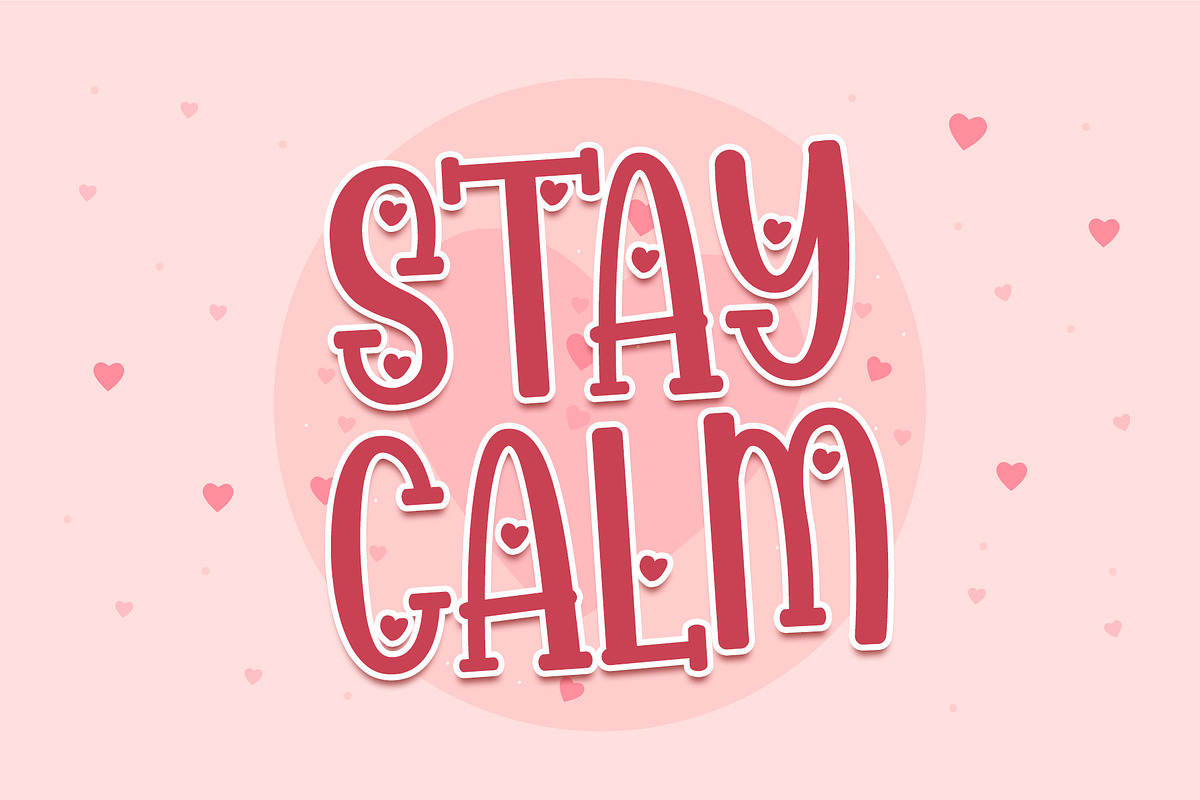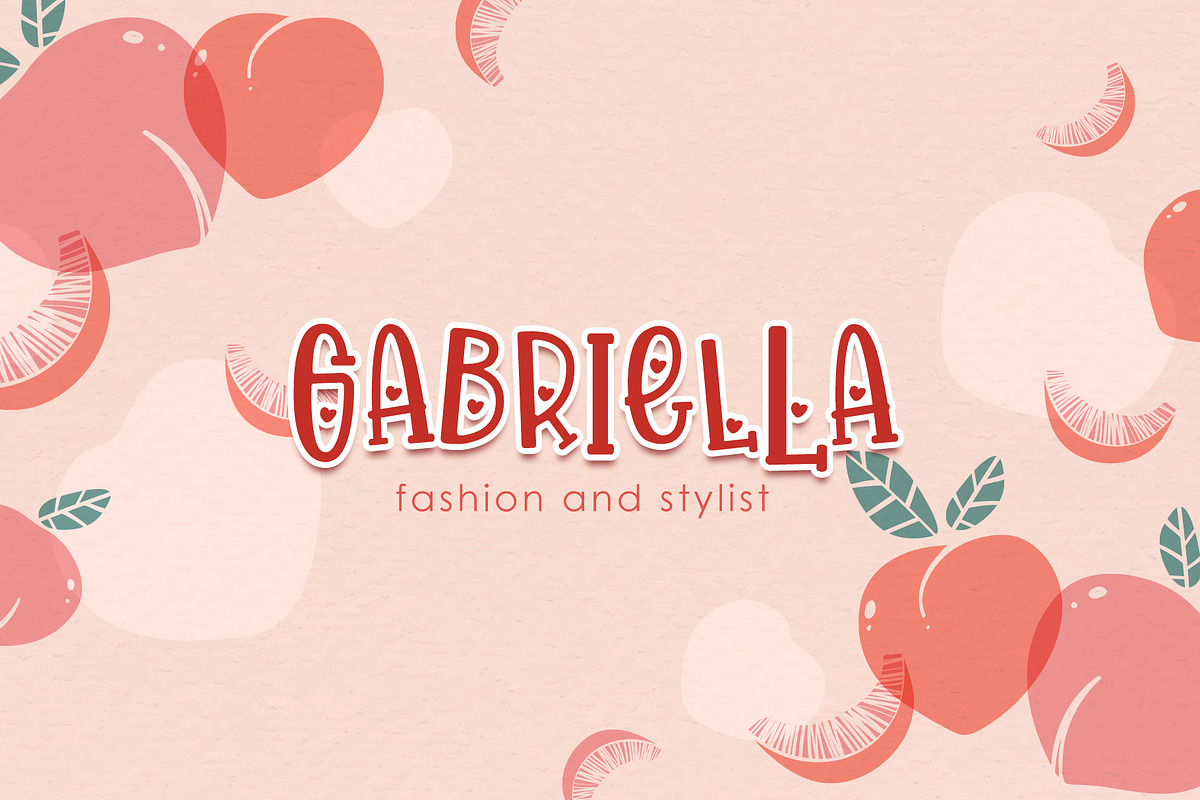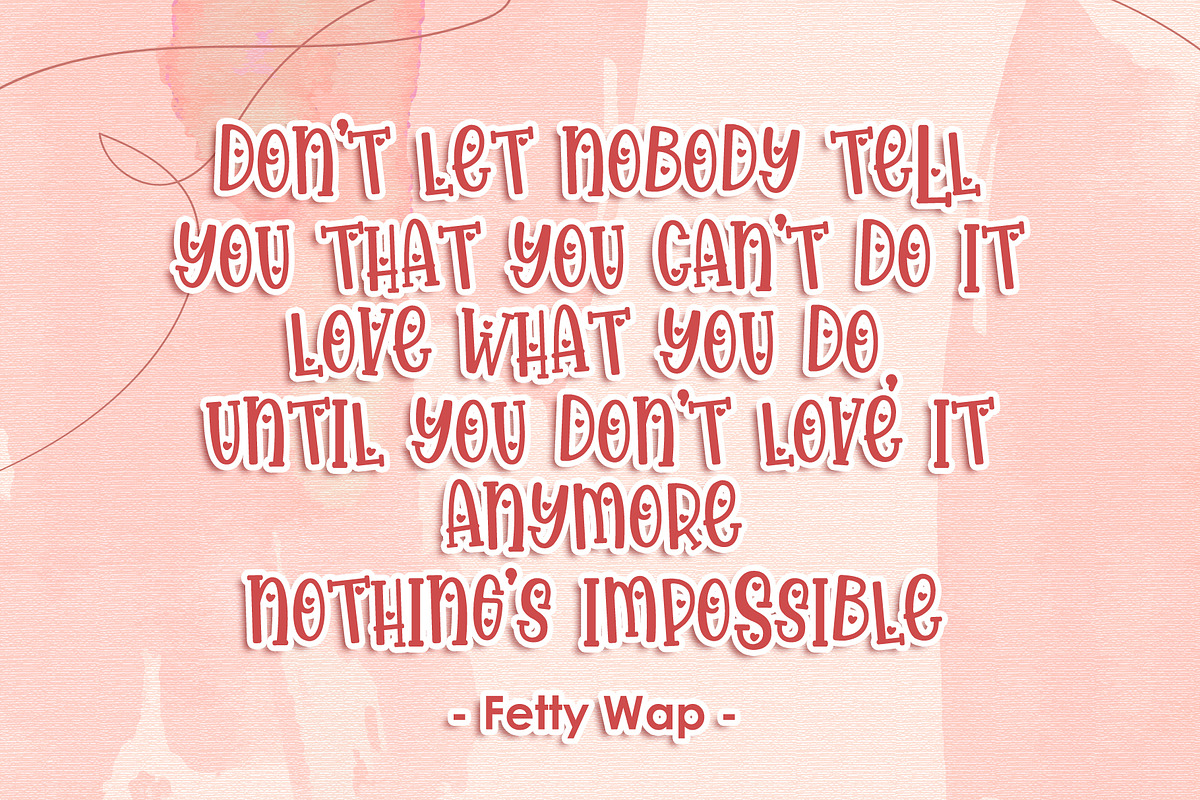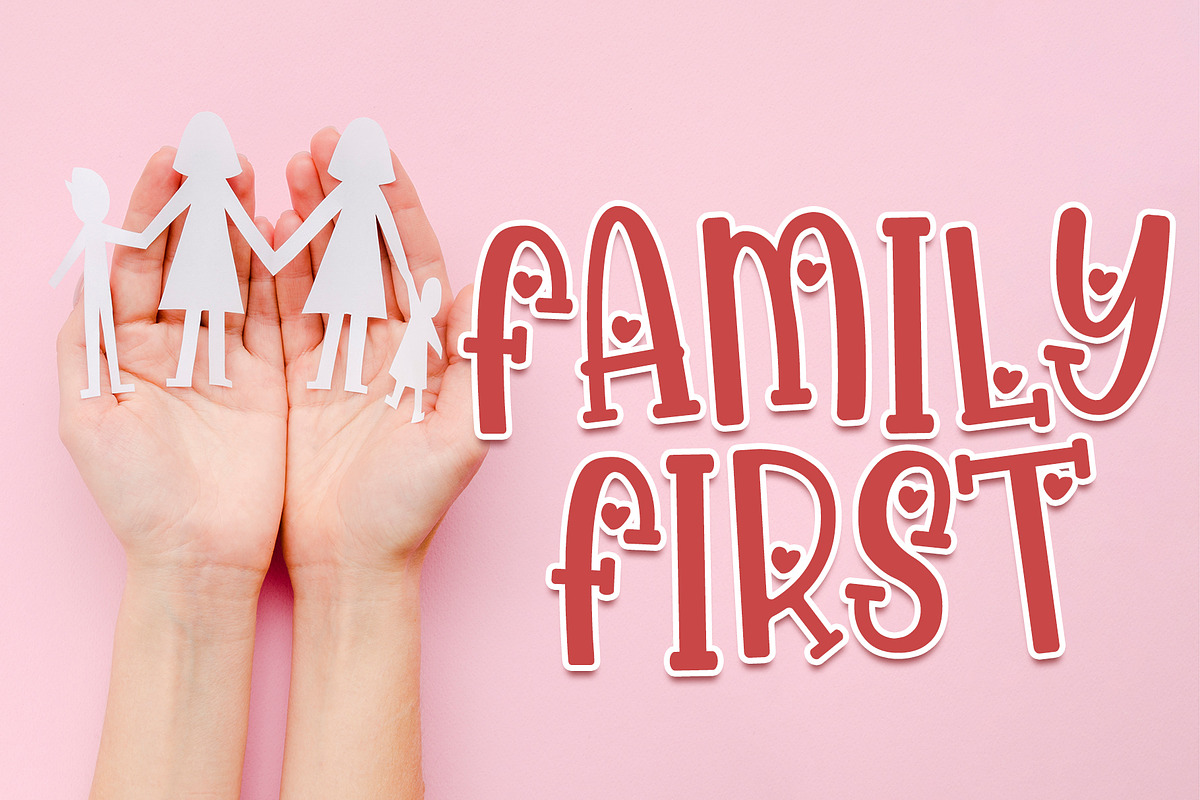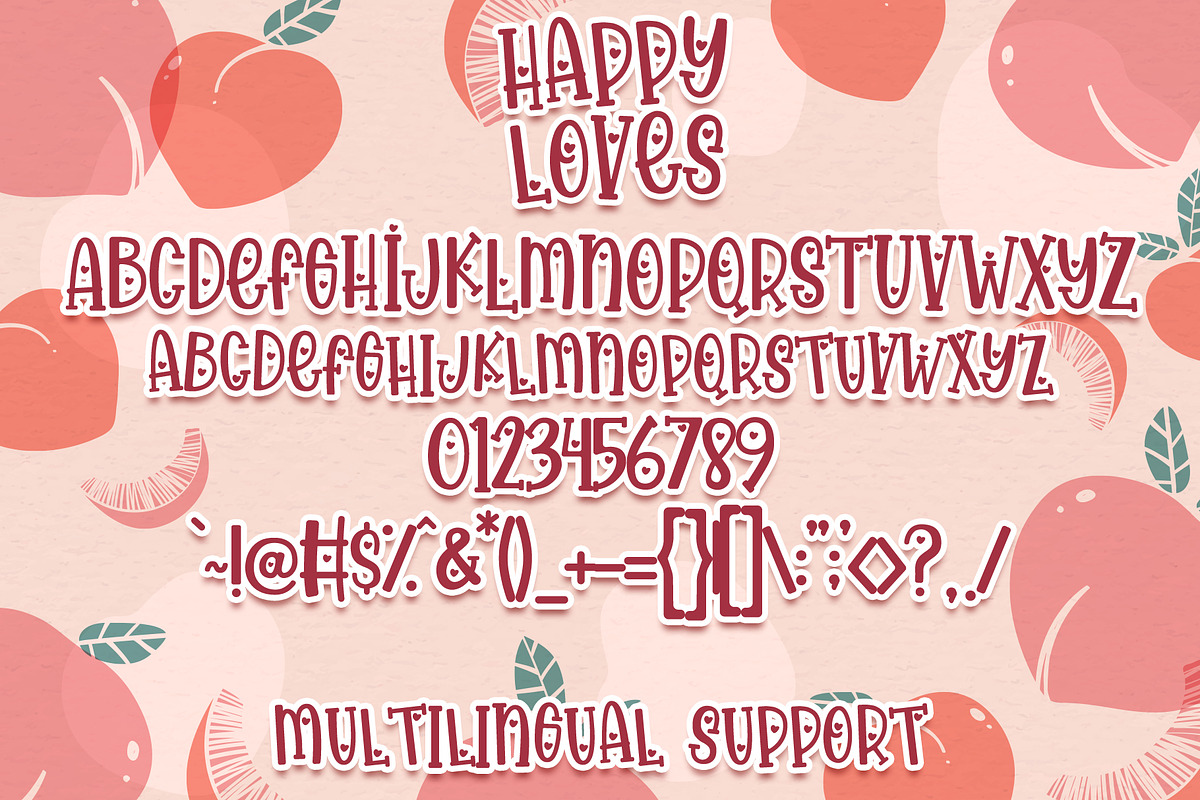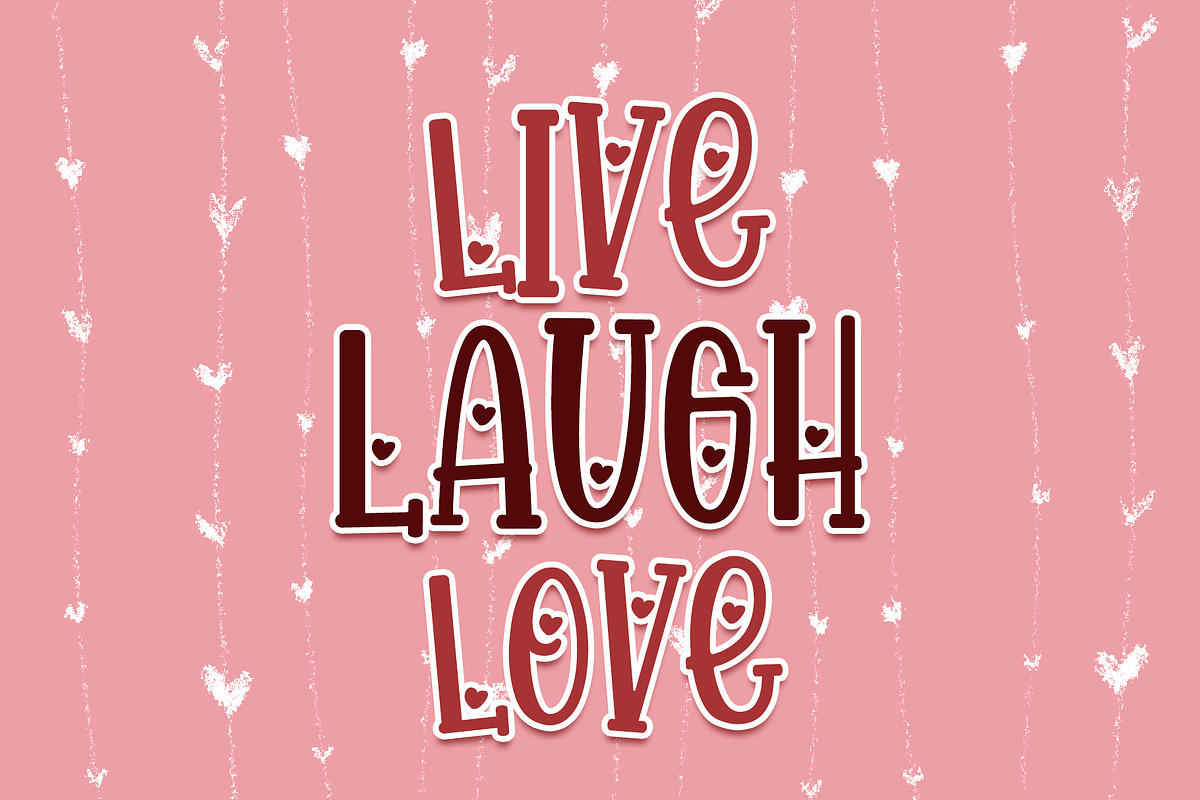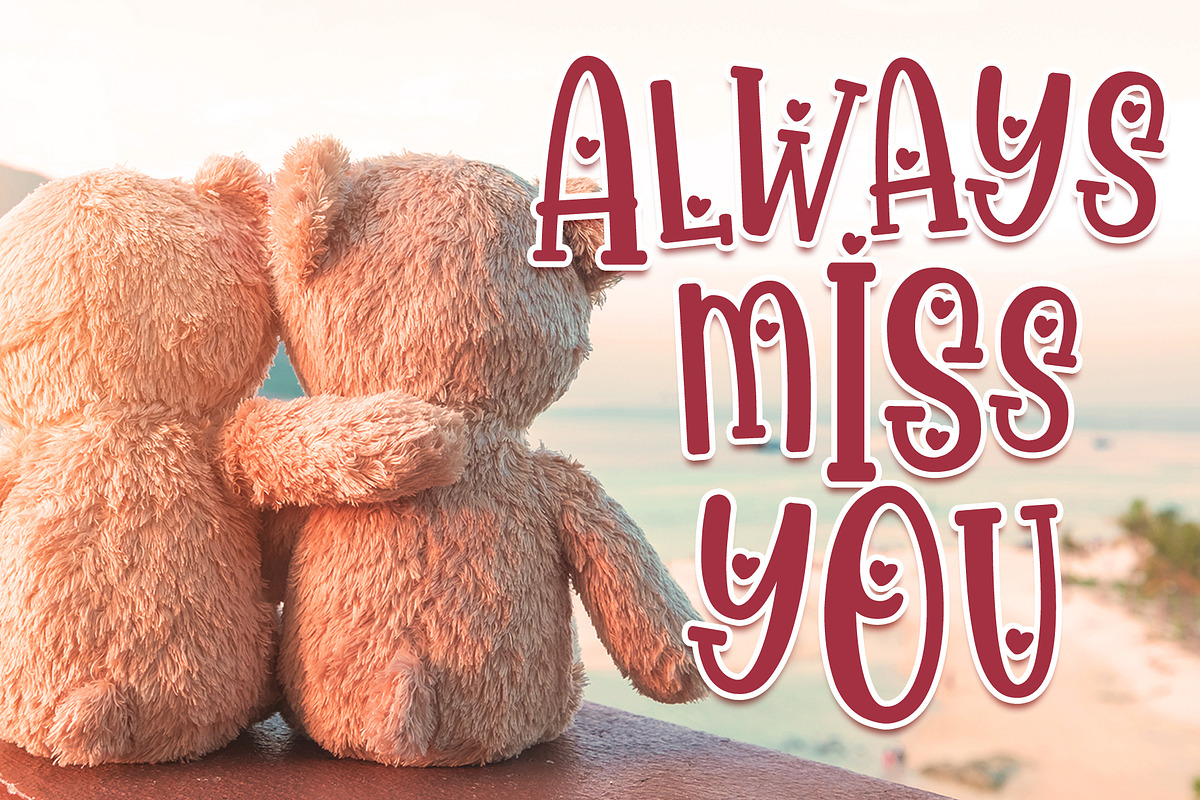
Happy Loves - Handwritten Font
Happy Loves is a lovable handwritten serif font! with the cute and bouncy looks, make your design more playful!
Uppercase ( Plain Uppercase )
Lowercase ( Bouncy lowercase )